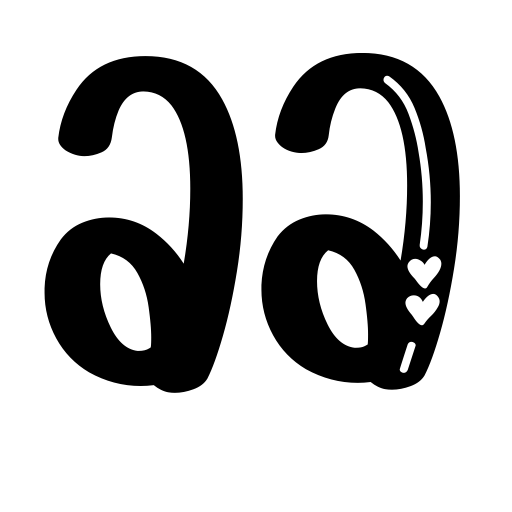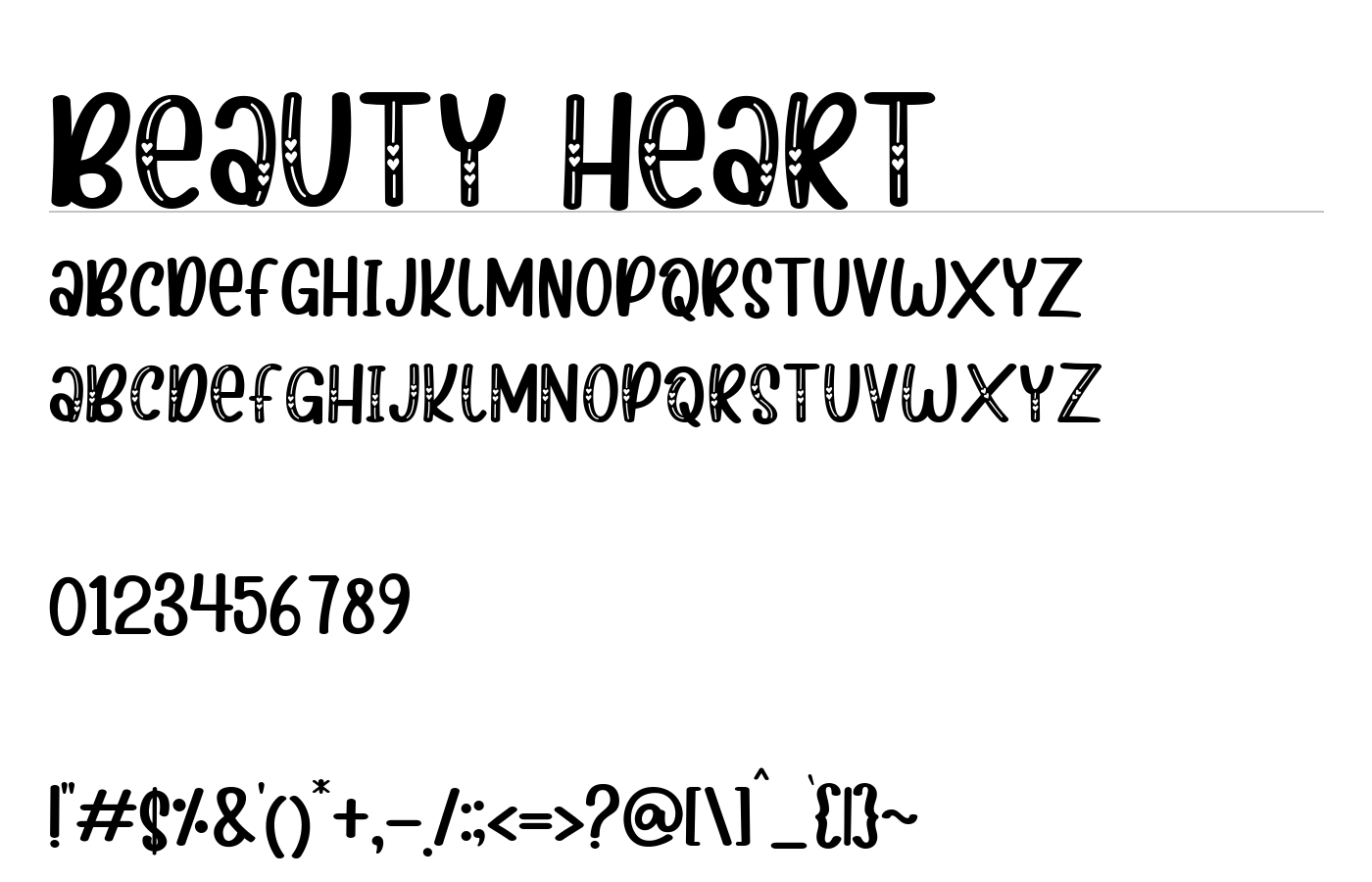
Beauty Heart is a playful and whimsical sans serif font with a casual, hand-drawn feel. It features tall, narrow letterforms with decorative heart shapes integrated into some characters, giving it a charming and friendly personality ideal for fun, youthful designs. This font works beautifully for crafting creative logos, invitations, and headlines where a lighthearted, affectionate tone is desired.
Beauty heart Font
About Beauty heart Font